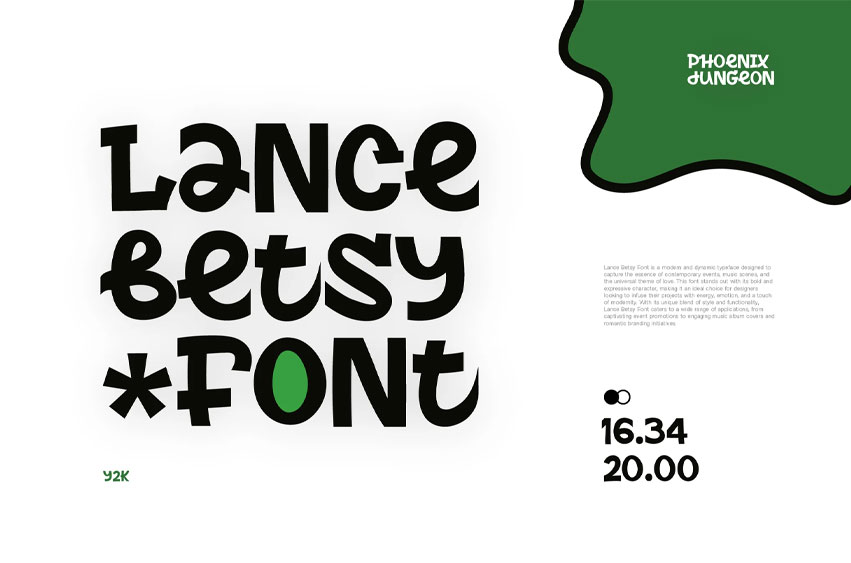
Lance Betsy Font
Lance Betsy Font is a modern and dynamic typeface designed to capture the essence of contemporary events, music scenes, and the universal theme of love.
This font stands out with its bold and expressive character, making it an ideal choice for designers looking to infuse their projects with energy, emotion, and a touch of modernity. With its unique blend of style and functionality, Lance Betsy Font caters to a wide range of applications, from captivating event promotions to engaging music album covers and romantic branding initiatives.